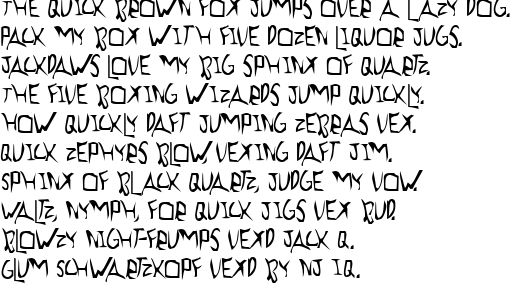
✓ Previewance
✓ UnAuthorized Type
✓ Ben McGehee
✓ This initial version includes all normal characters, plus a few extras. I was'nt really sure what this font would be good for when I created it, but some people wrote e-mail that said it looked letters at the bottom of a pool. Write a bolck of text in blue letters and see if you can understand. As time goes by, and my skills increase, better fonts will be released. Probably as freeware.